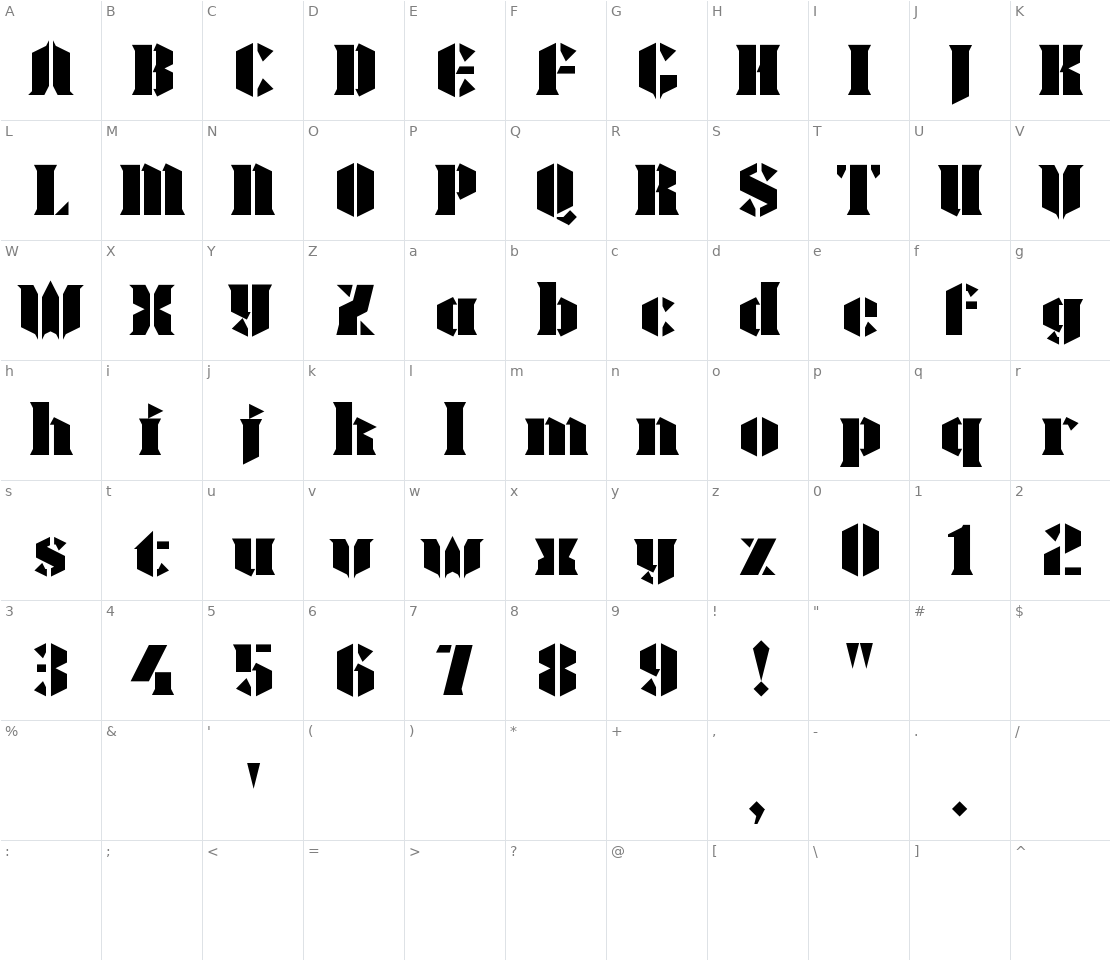
Tatted Teez Canada
by Sean Eden
Tatted Teez Canada is a heavy stencil display face from Sean Eden with bold, angular letterforms and a rigid geometric structure. The stencil cuts are clean and deliberate, giving it a utilitarian, almost military feel that works well on posters, headlines, and large-format signage. Its sheer weight and blocky proportions make it hard to miss, built for moments where type needs to dominate the page.